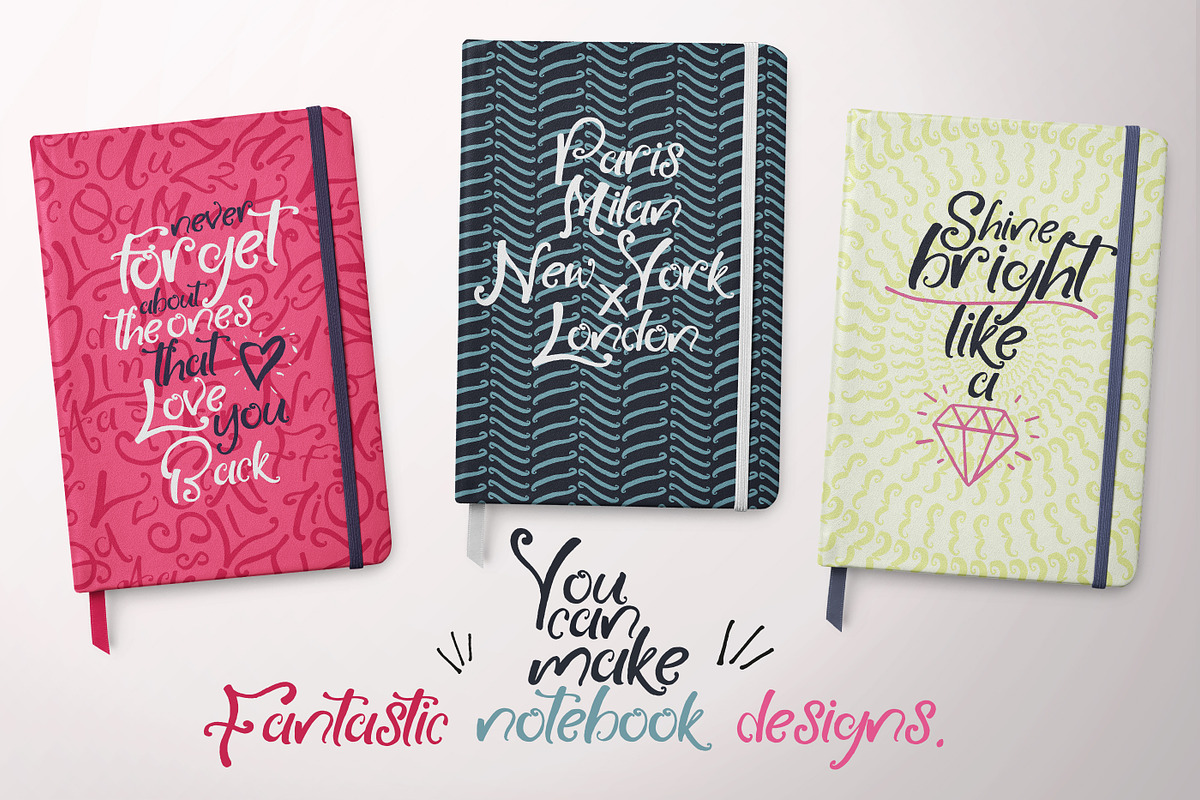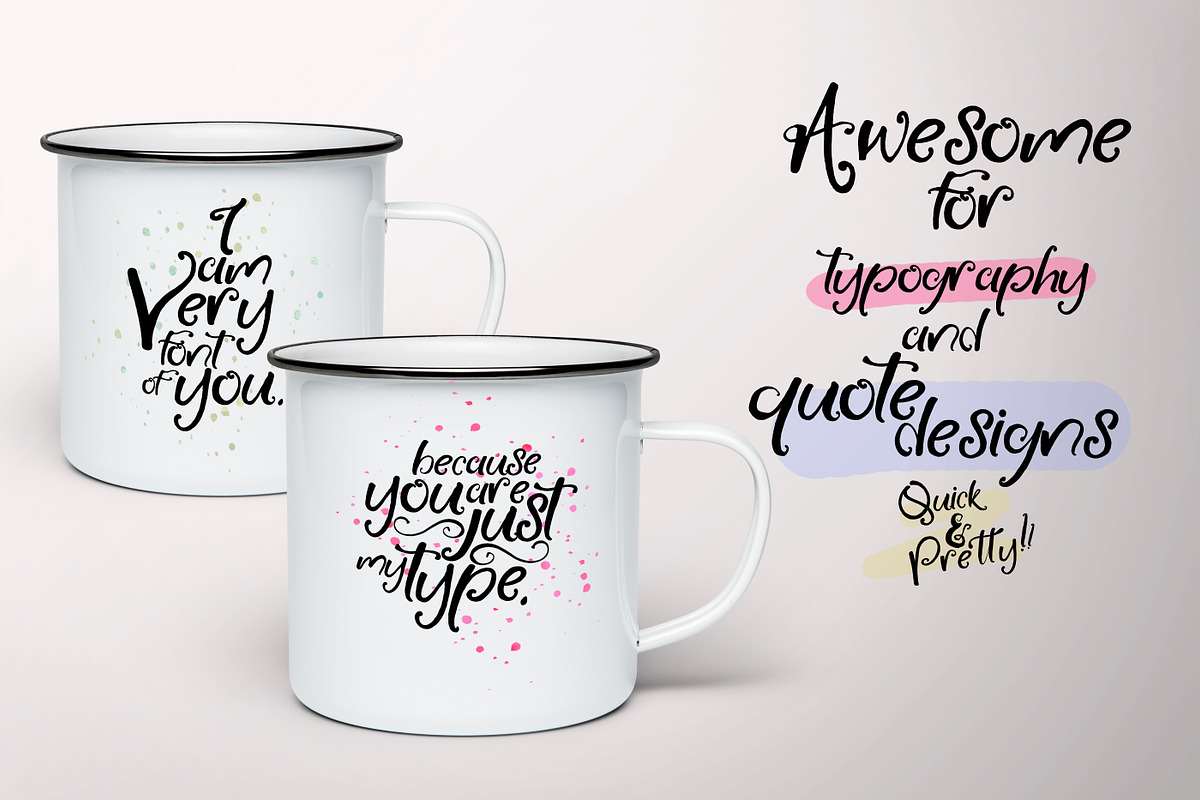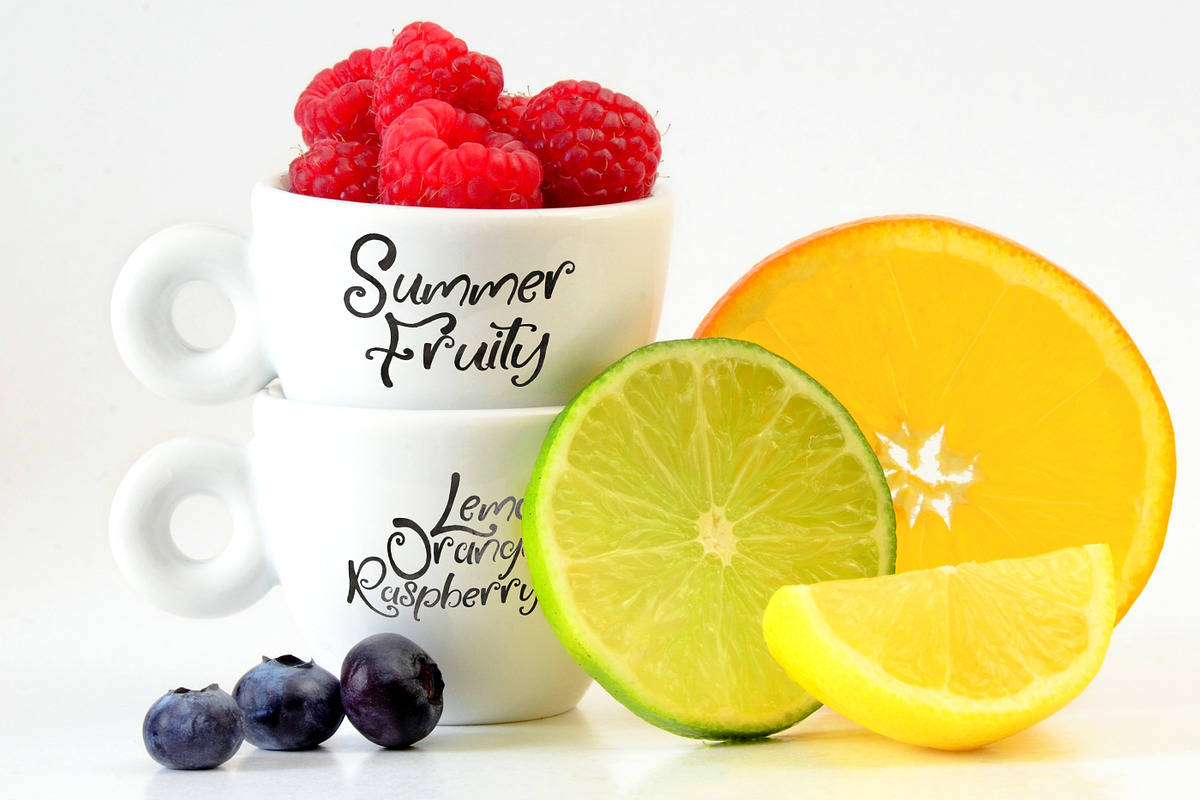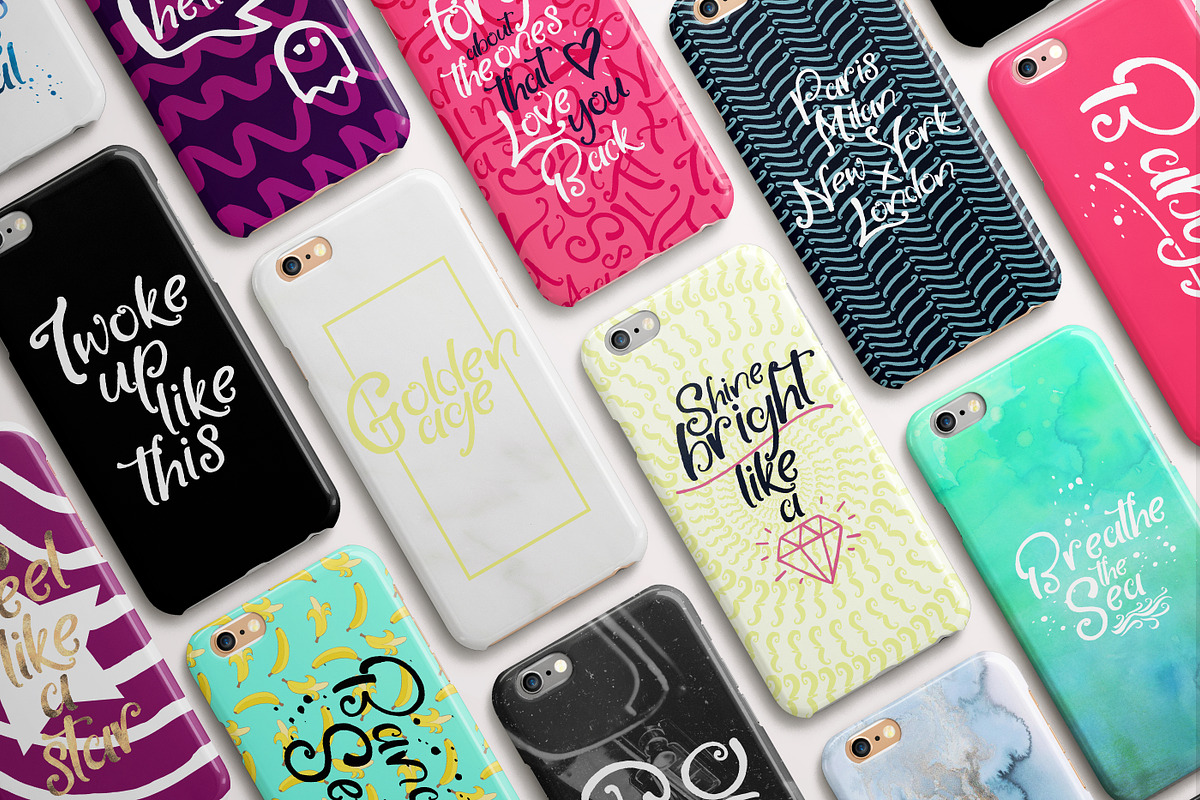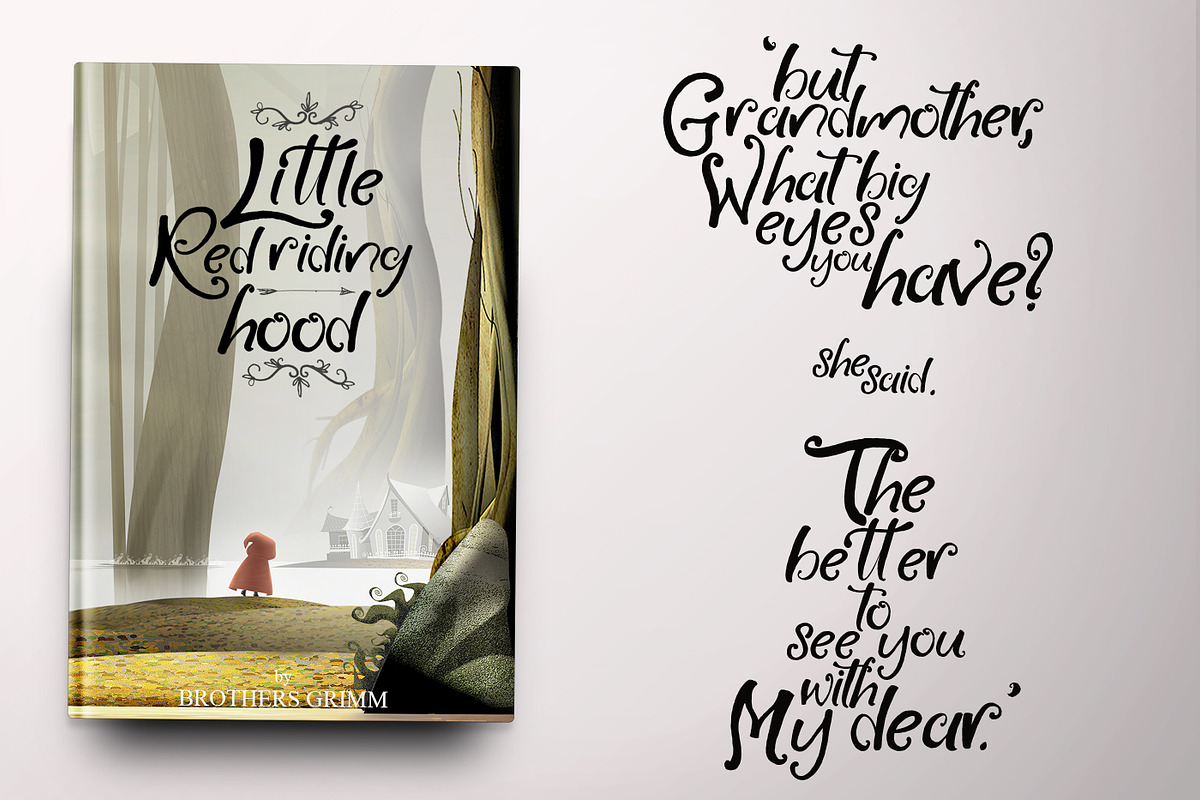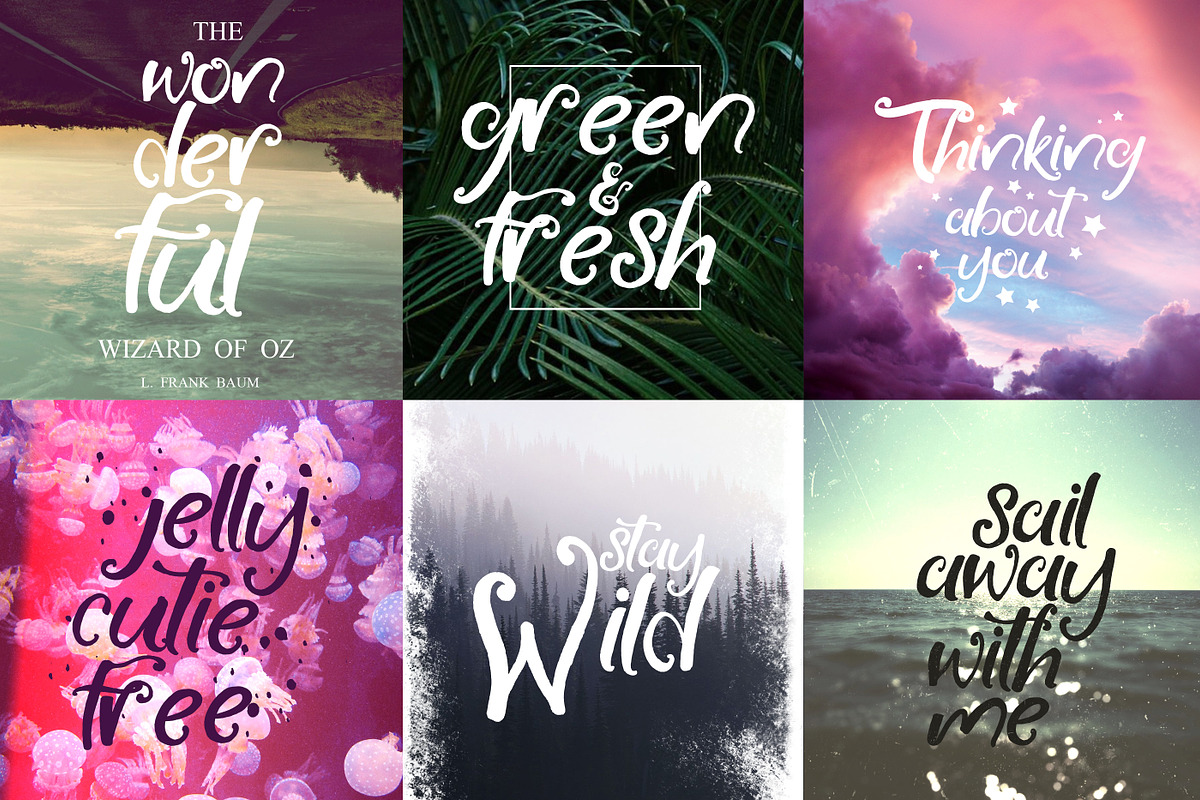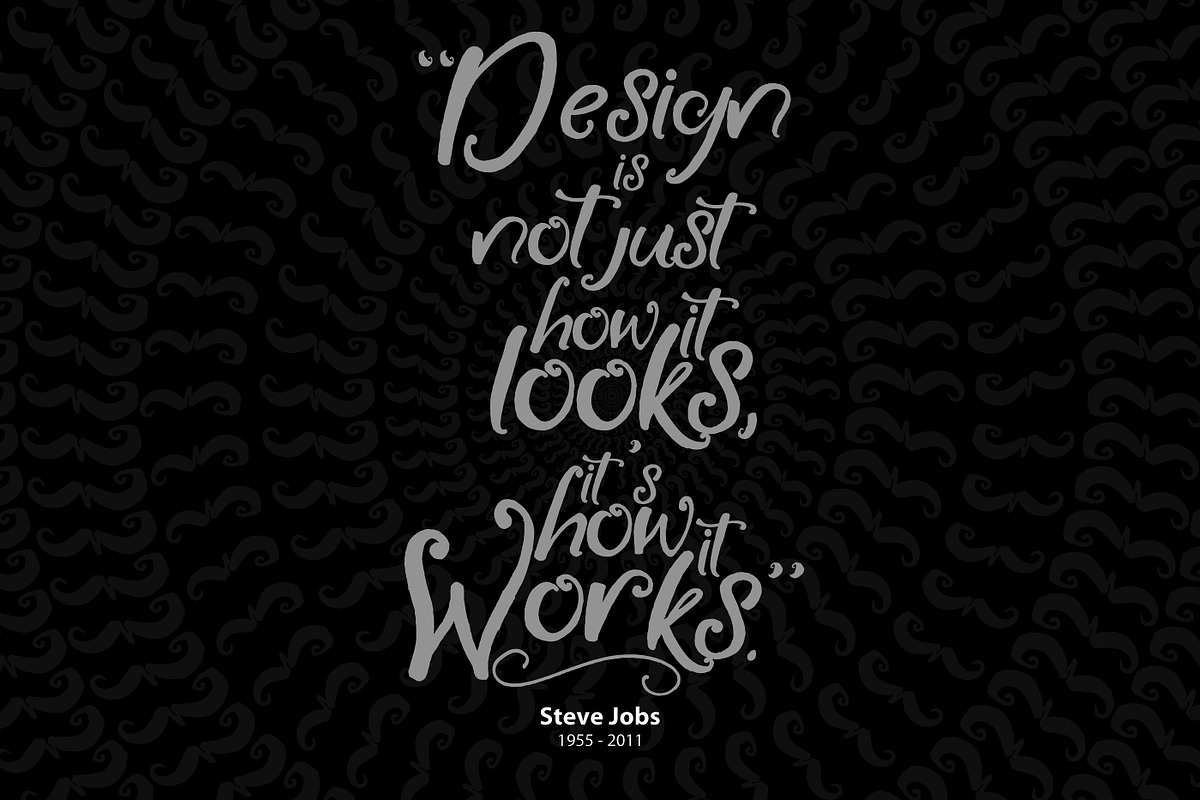
Little Raspberry Typeface+Extras
Little Raspberry Typeface+Extras by Yasir Ekinci is a font selected for branding, posters, packaging, typography.
Why Little Raspberry Typeface+Extras is worth a look
Little Raspberry Typeface+Extras by Yasir Ekinci fits naturally into Branding, posters, packaging, typography.